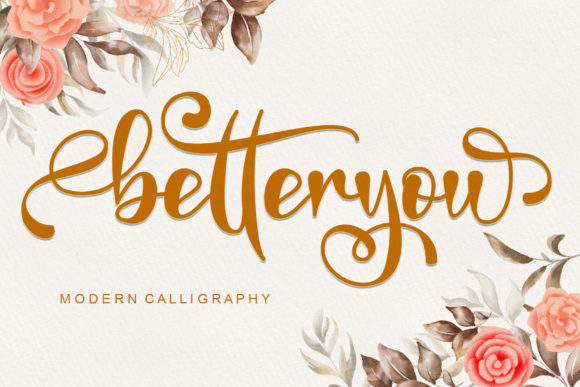
Introducing Betteryou Font: The Epitome of Elegance and Distinction
Immerse yourself in the world of Betteryou, a captivating script font family that exudes beauty, grace, and sophistication. Carefully crafted by the talented designers at Letterafa Studio, Betteryou is not just a font; it's an artistic masterpiece that brings a touch of luxury and refinement to every design project.
With its delicate strokes, flowing curves, and stunning impact, Betteryou is the perfect choice for branding, logos, invitations, posters, social media graphics, and any project where you want to leave a lasting impression. Its unique feel adds a personal touch, making your designs stand out from the crowd.
Designed with versatility in mind, Betteryou pairs effortlessly with other fonts, allowing you to create harmonious and visually appealing layouts. Its PUA encoding makes it a breeze to access all the amazing glyphs and ligatures, giving you endless possibilities for customization.
Unleash your creativity and let Betteryou transform your designs into works of art. Its light handwritten style adds a touch of warmth and charm, making your projects feel inviting and approachable. Whether you're a seasoned designer or just starting out, Betteryou is the perfect font to elevate your work and captivate your audience.